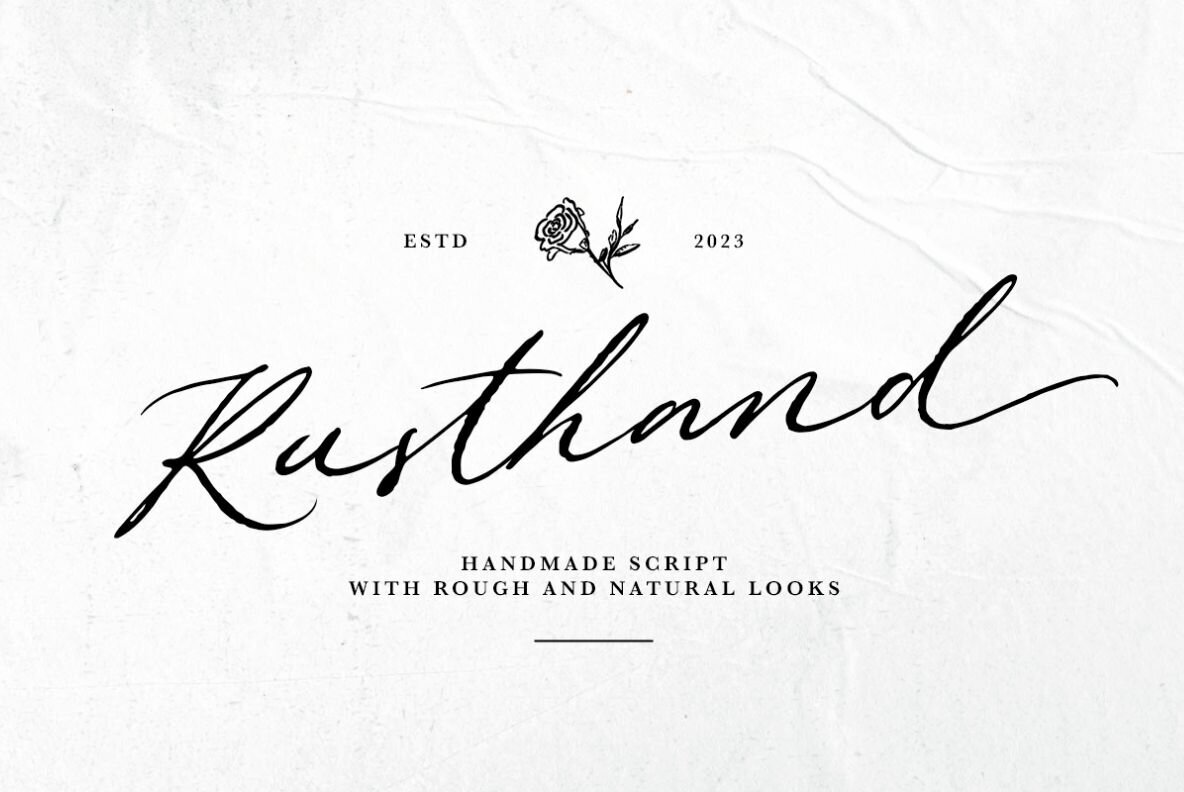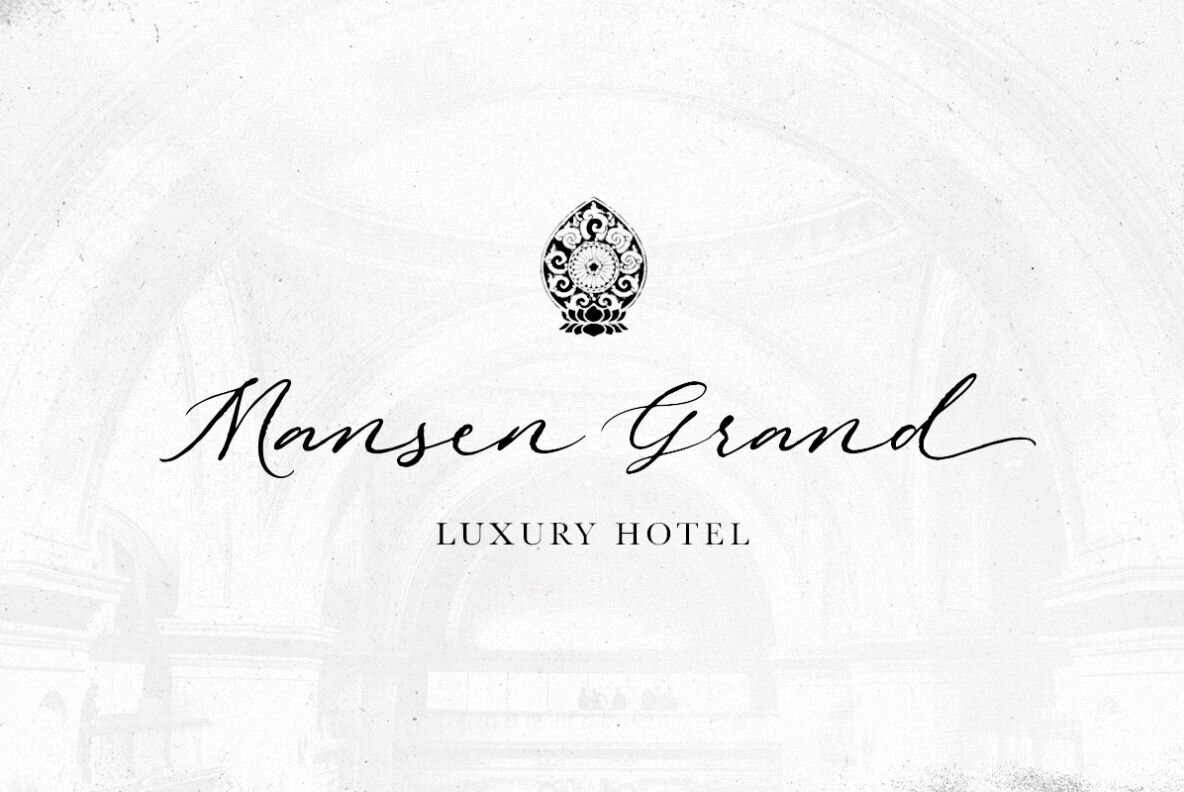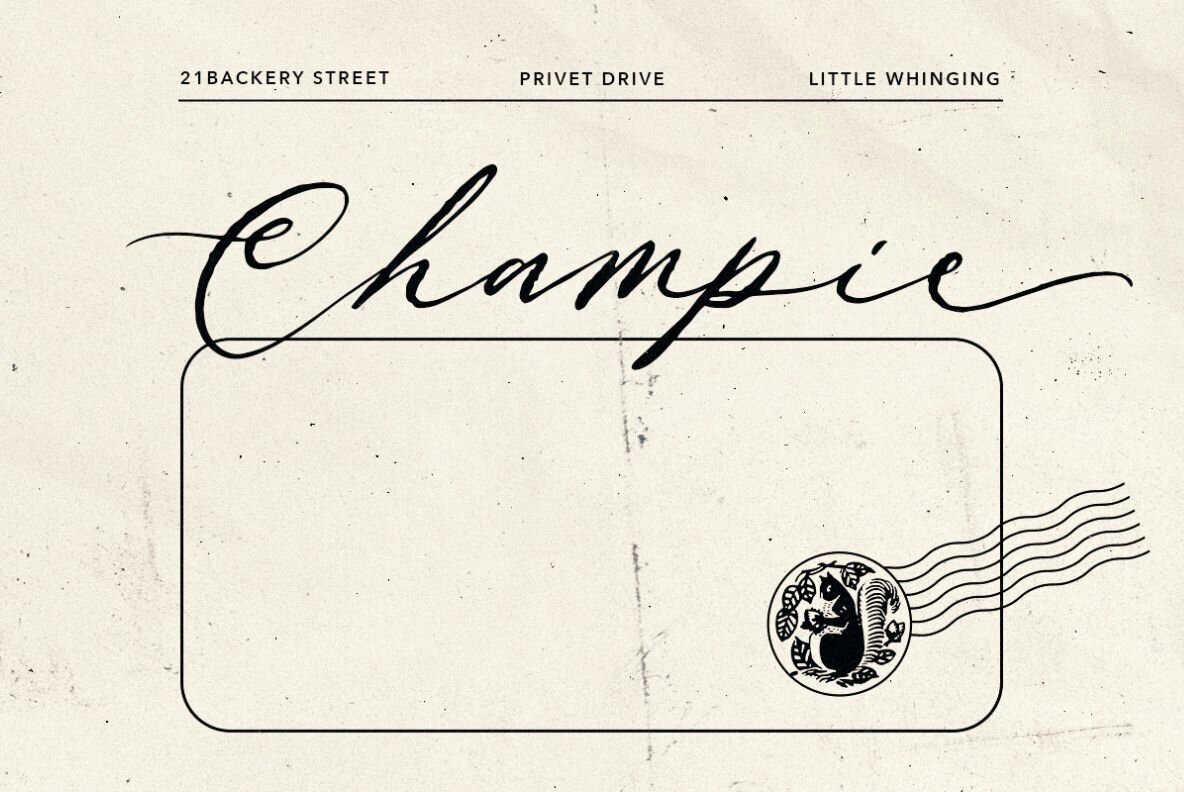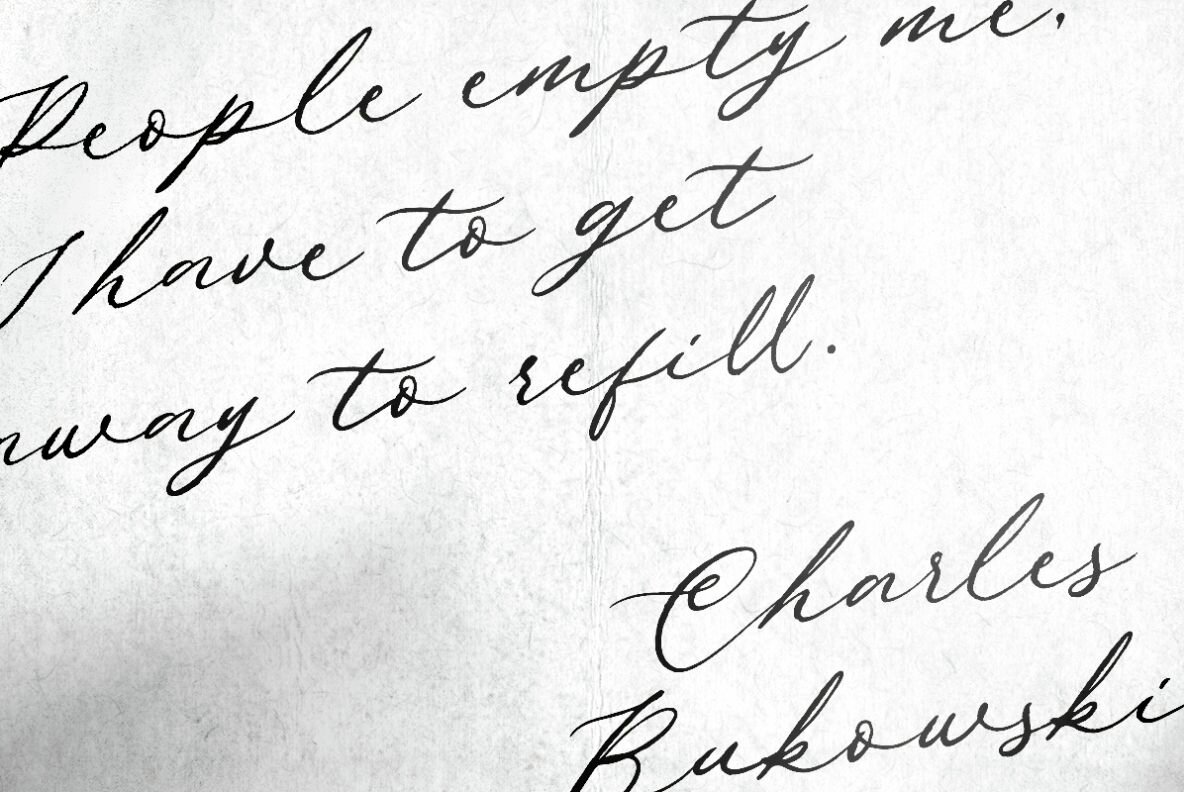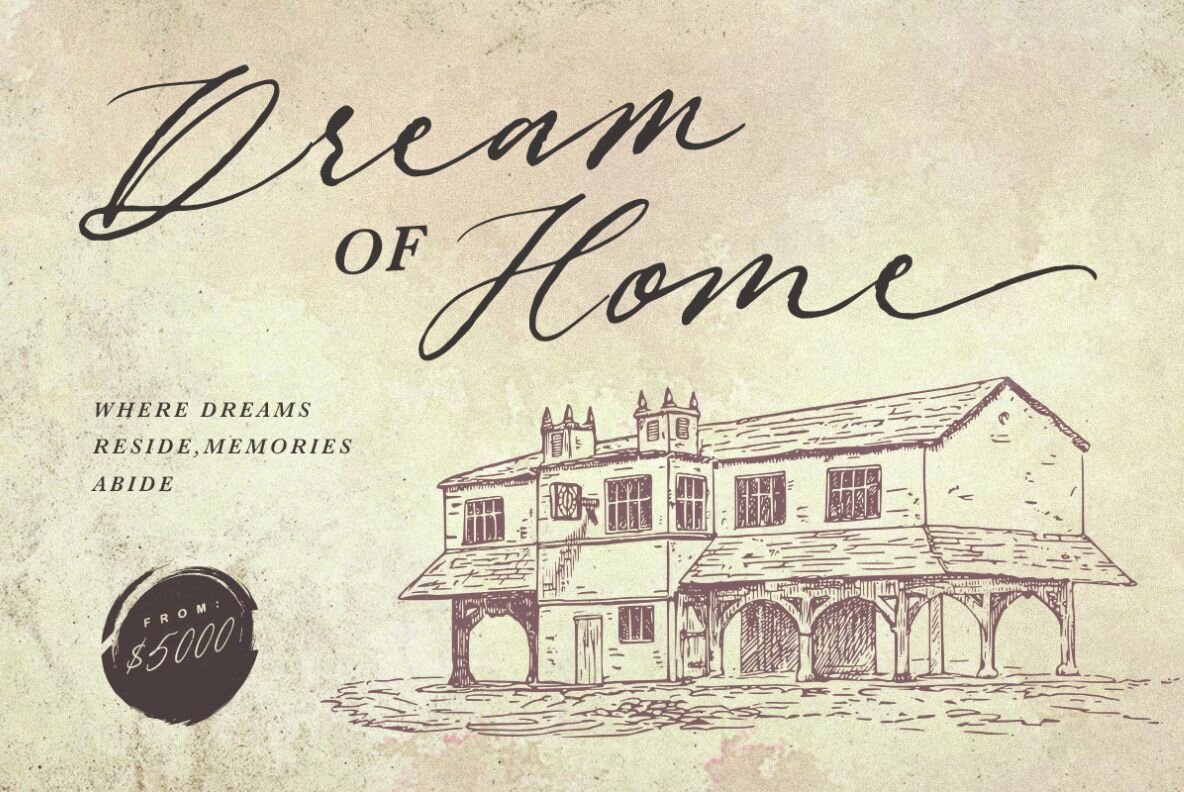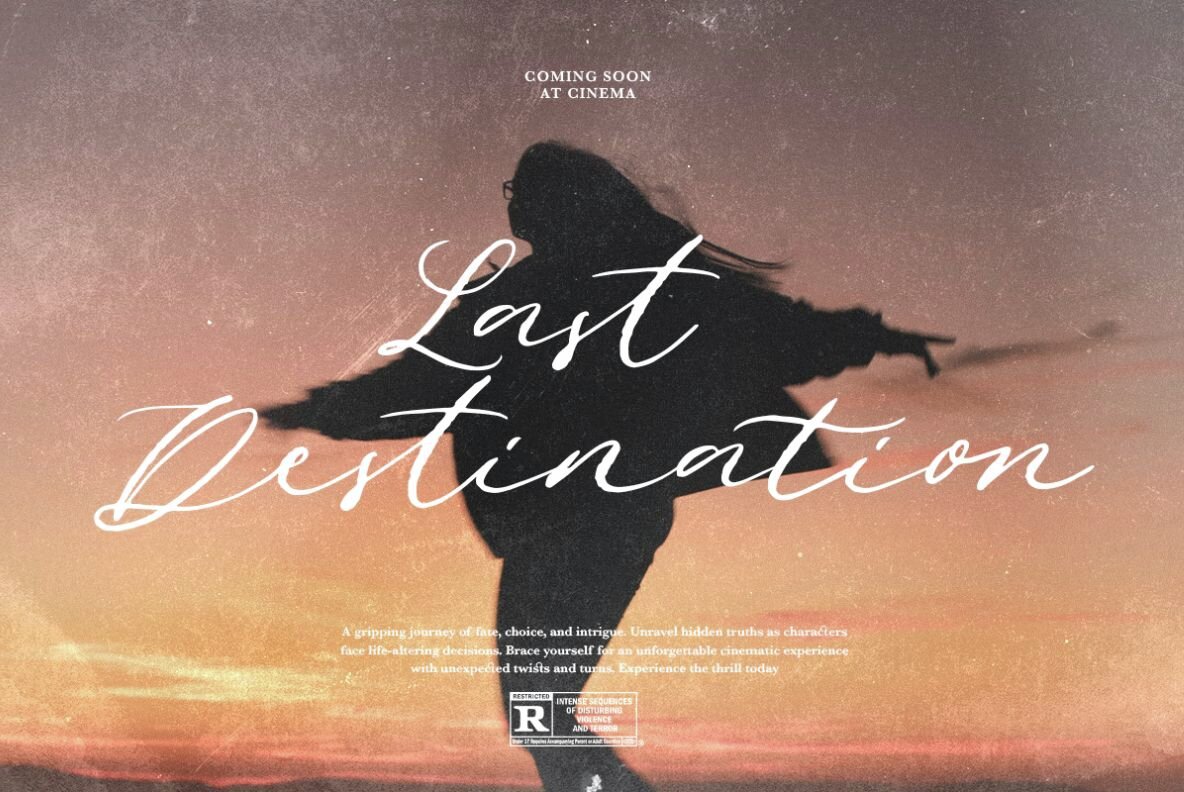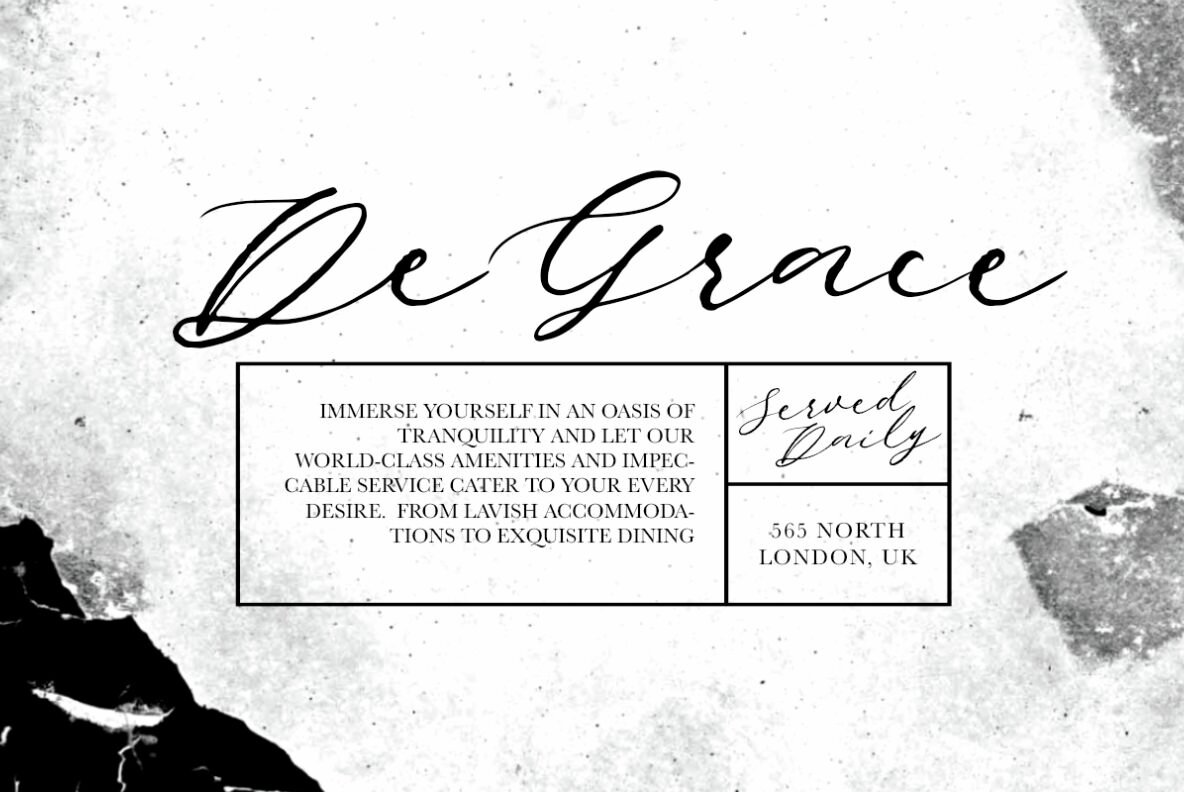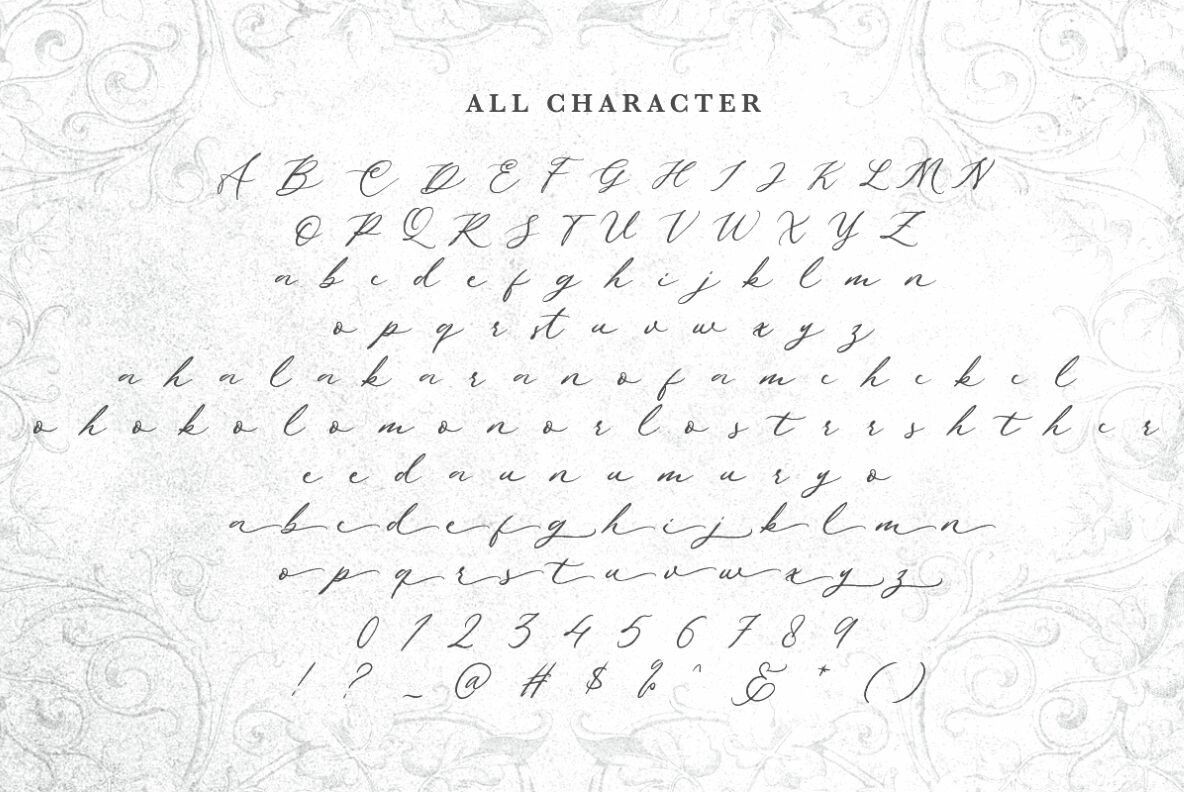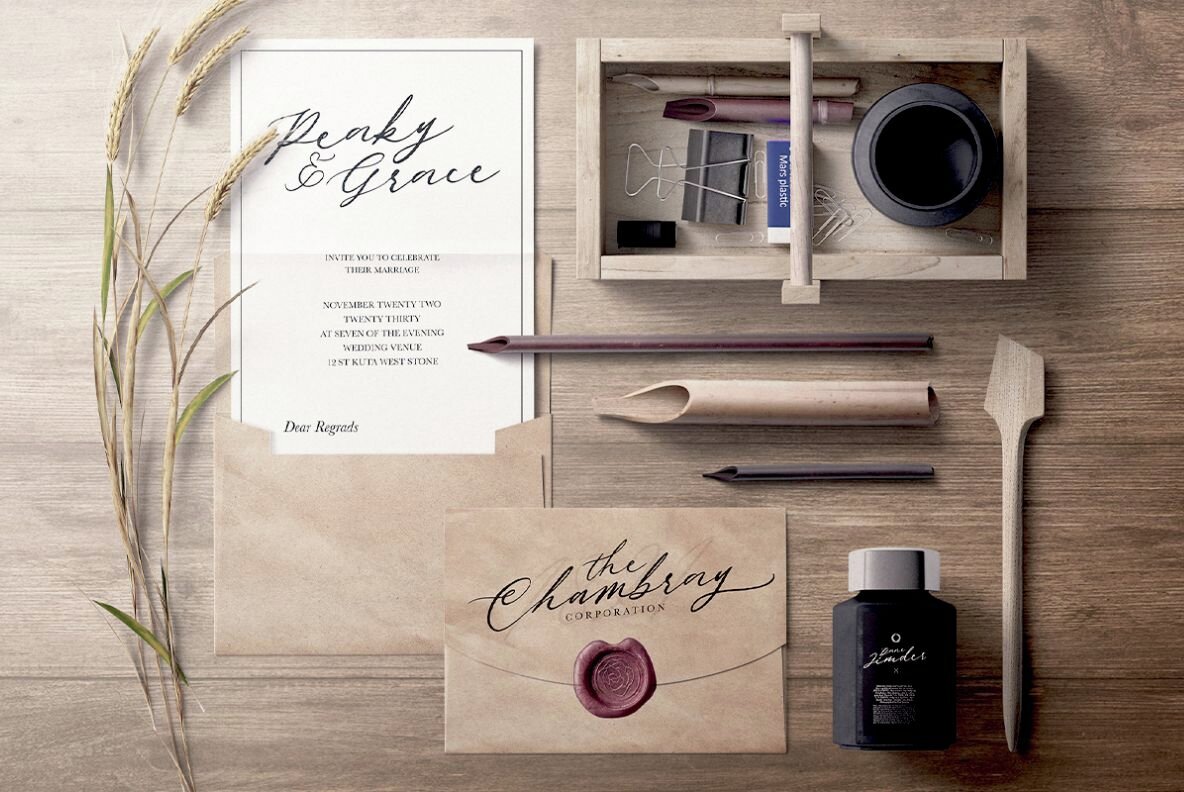
Rusthand Font
Rusthand Regular
Rusthand is a handmade script with natural and rough looks. Comes with ligatures and end alternate, this font will make your presentation looks more organic and natural. You can use this font for logotype, wedding invitations, or even aesthetic quotes. This font also support multi language!